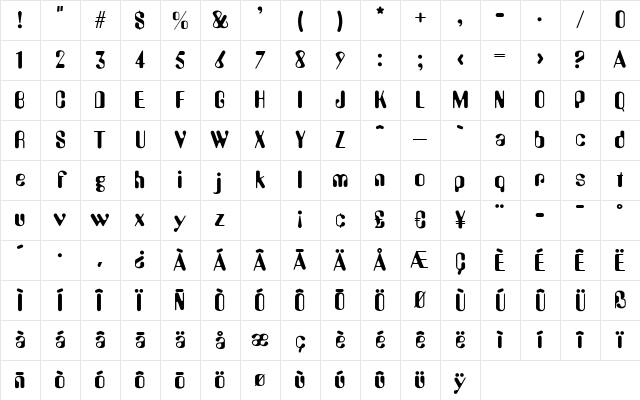
OliviaBecker Regular
Design Context for OliviaBecker
OliviaBecker is a composed and adaptable typeface that performs quietly and consistently across a wide range of design contexts.